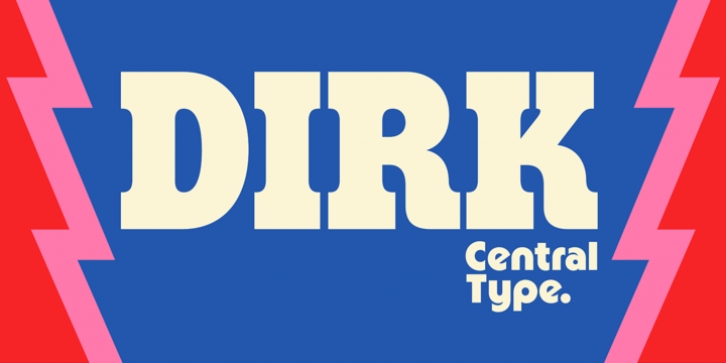
Dirk is a strong, heavy slab serif meant for large, attention grabbing display use. Dirk's design lives somewhere between a Clarendon wood type style and a more modern geometric slab serif. It features the bracketed serifs, large x-height, and short ascenders/descenders of a Clarendon design, but drawn with the precision curves and smooth, sturdy structure of a geometric slab. The result retains the charm of wood type, but sheds a lot of the over-familiarity and sameness of a digital revival.
Dirk is available in both a clean, Black weight as well as a Stencil version. Each styles feature a full Western, Central, and South Eastern European character set.